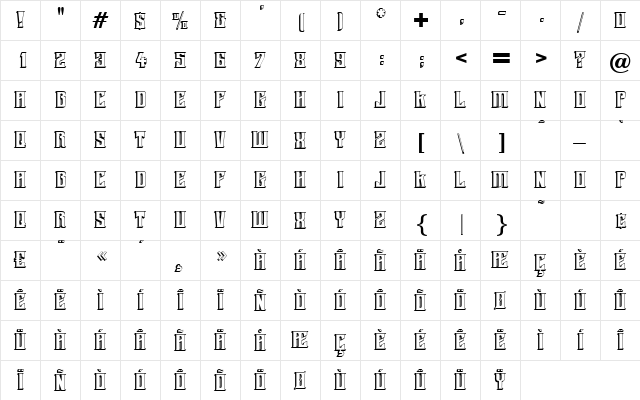
Hostel Regular Font Preview
Hostel Regular
Design Context for Hostel Typeface
Hostel is a composed and adaptable typeface that performs quietly and consistently across a wide range of design contexts.